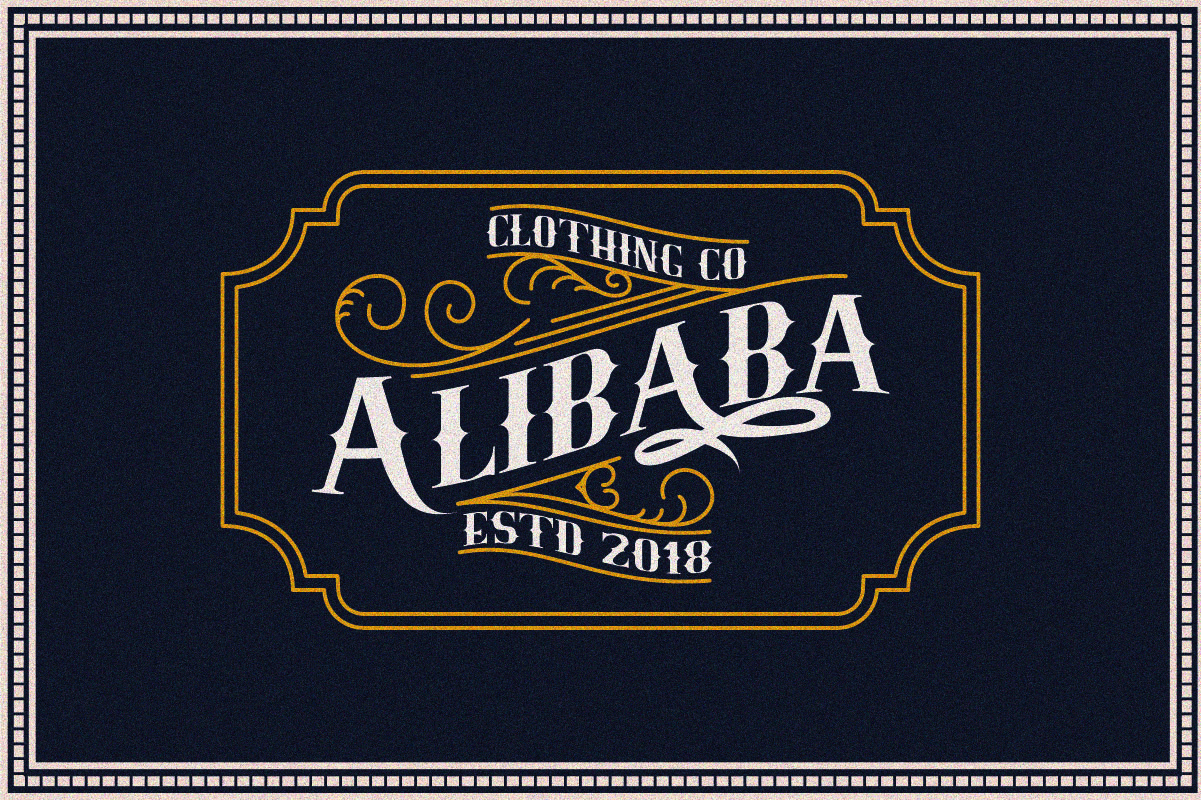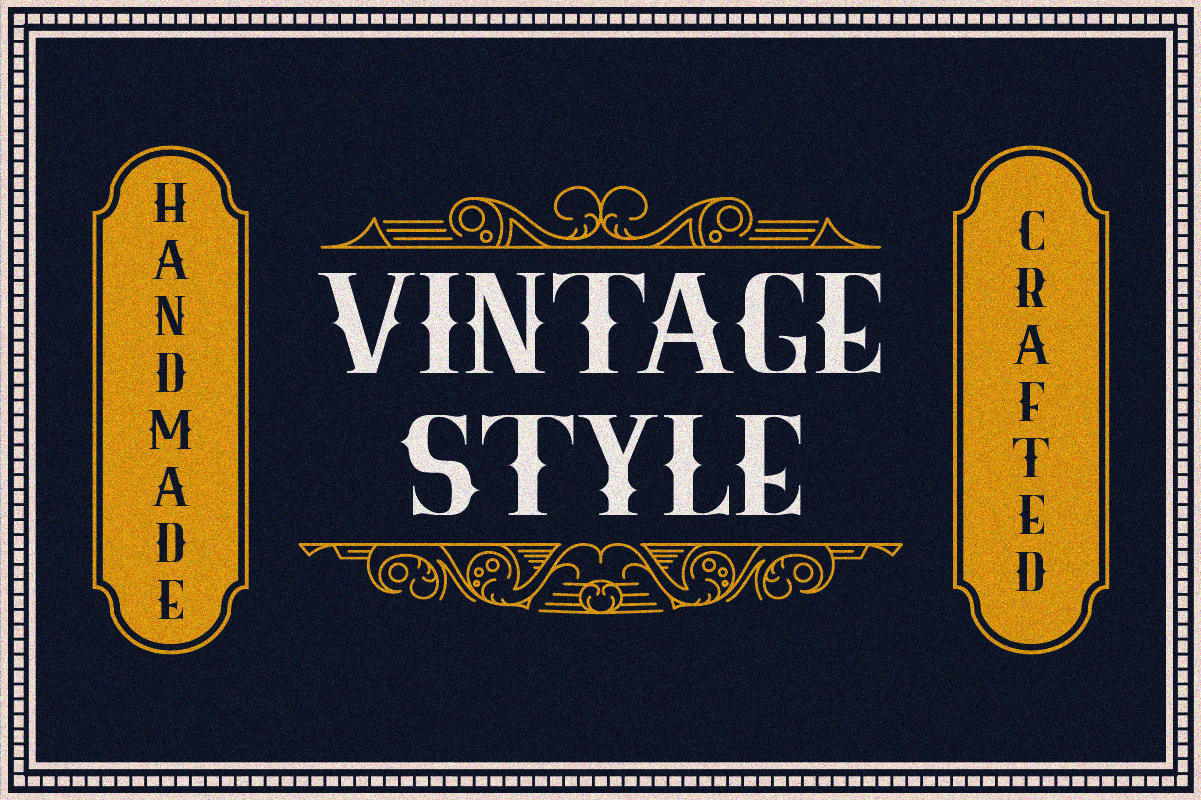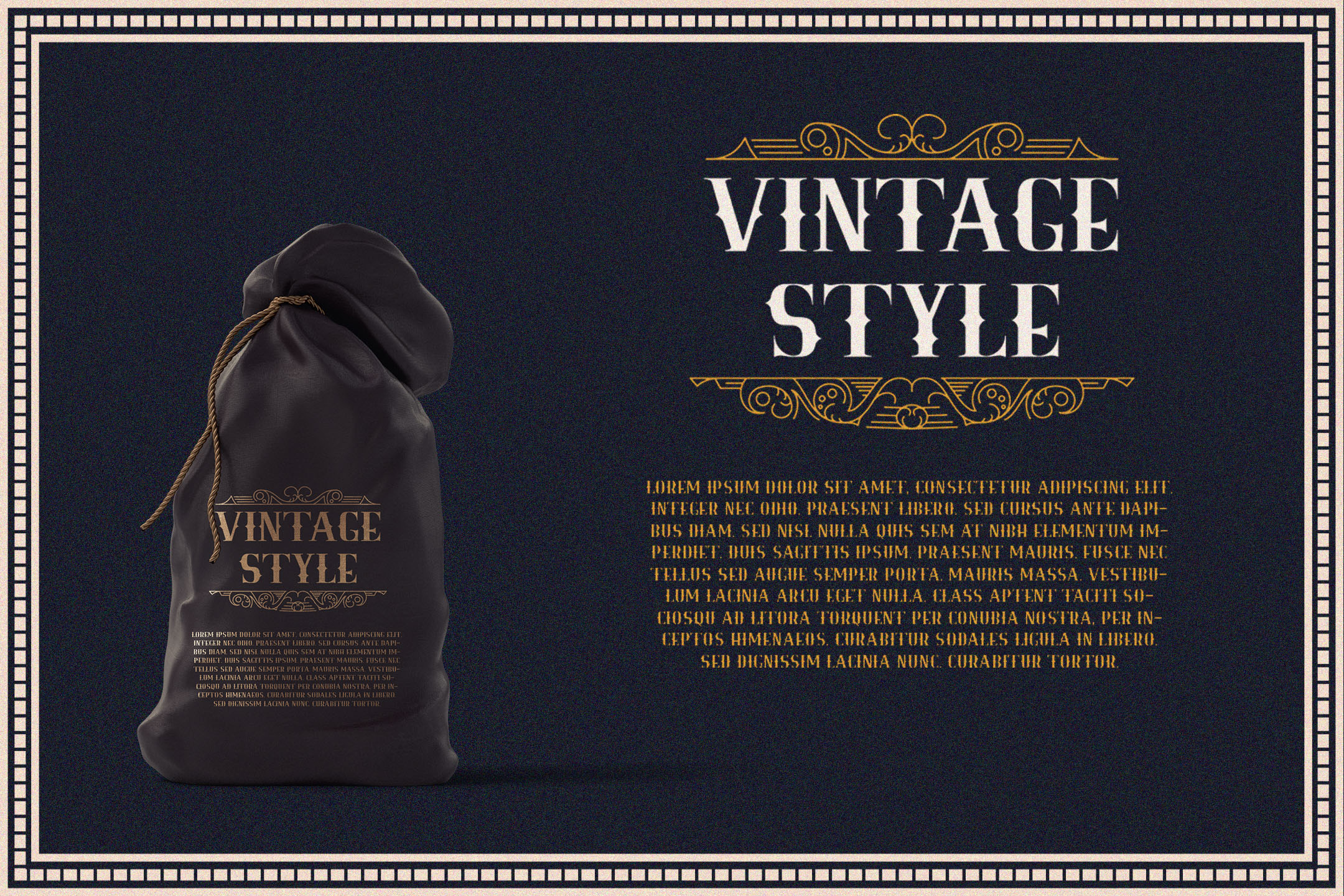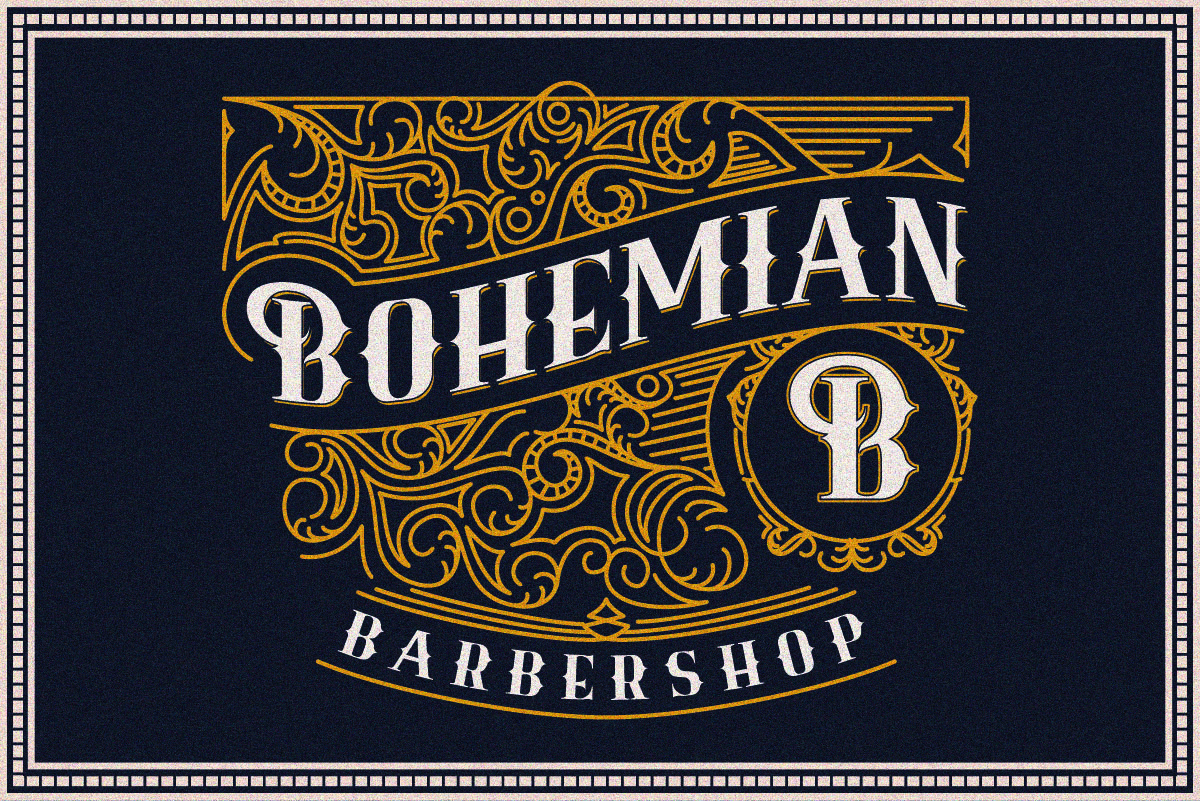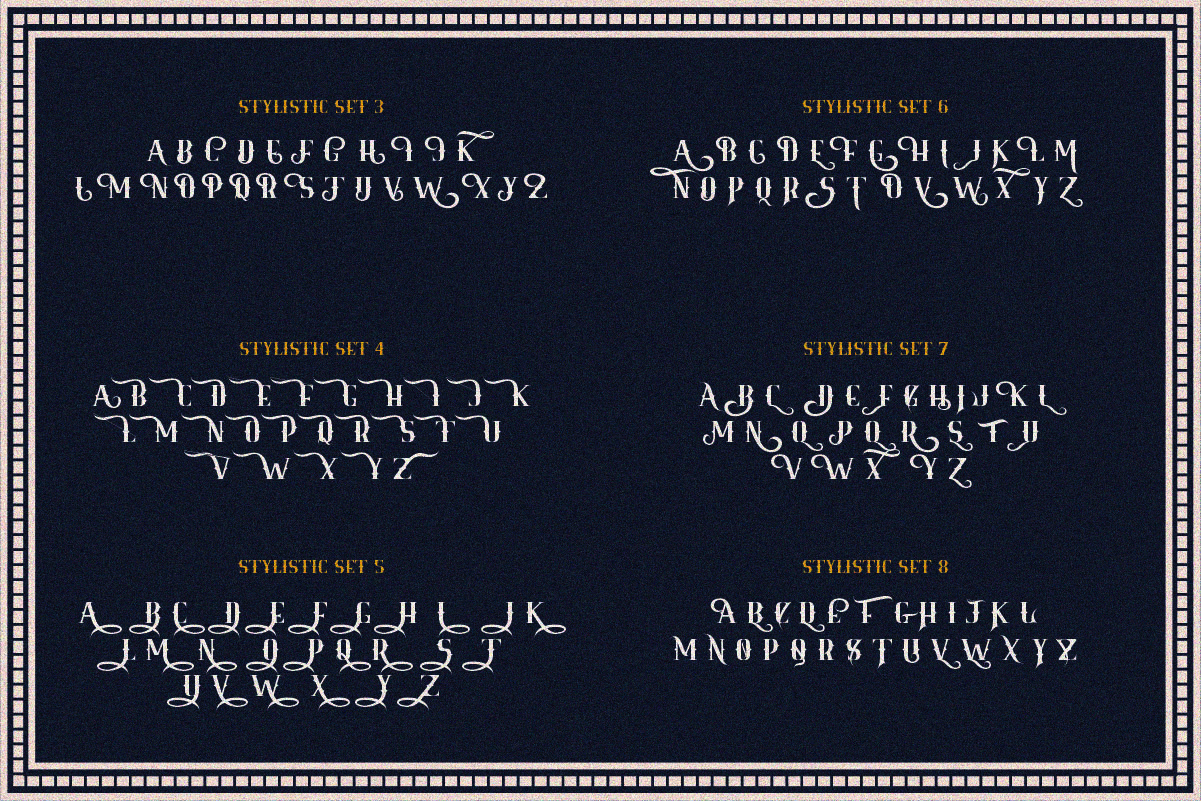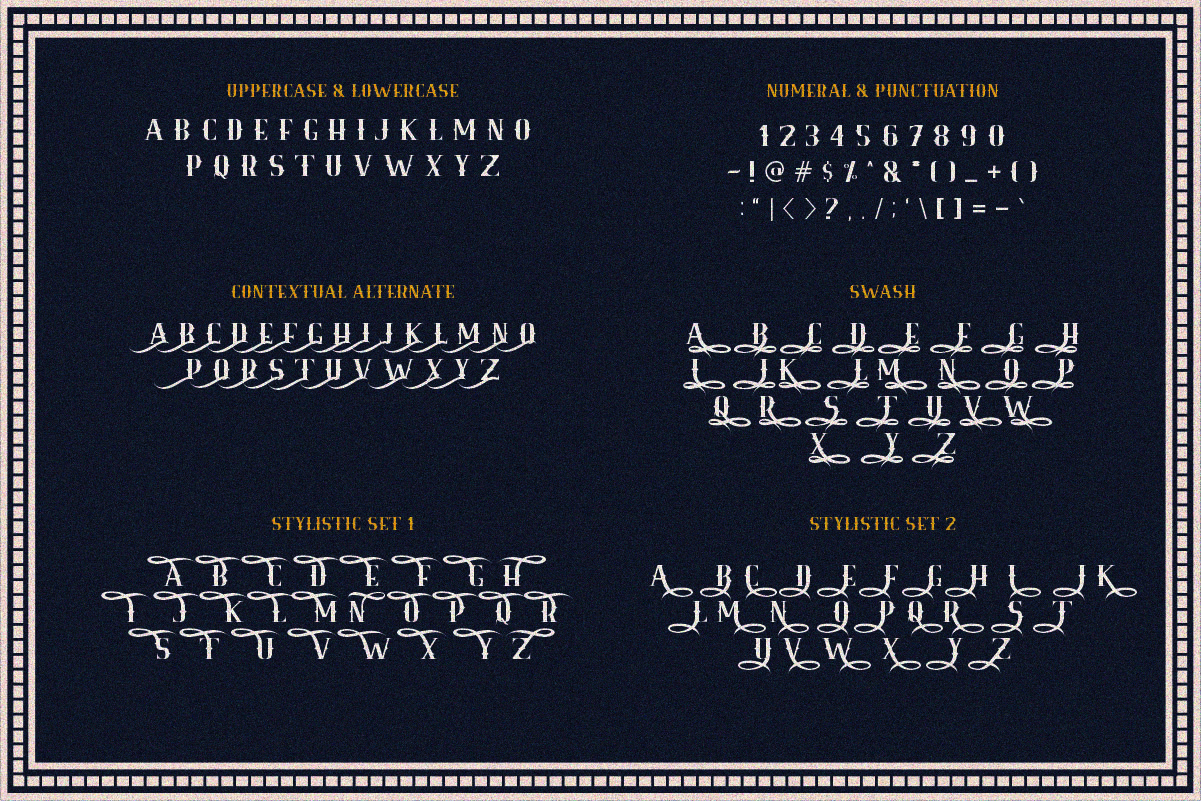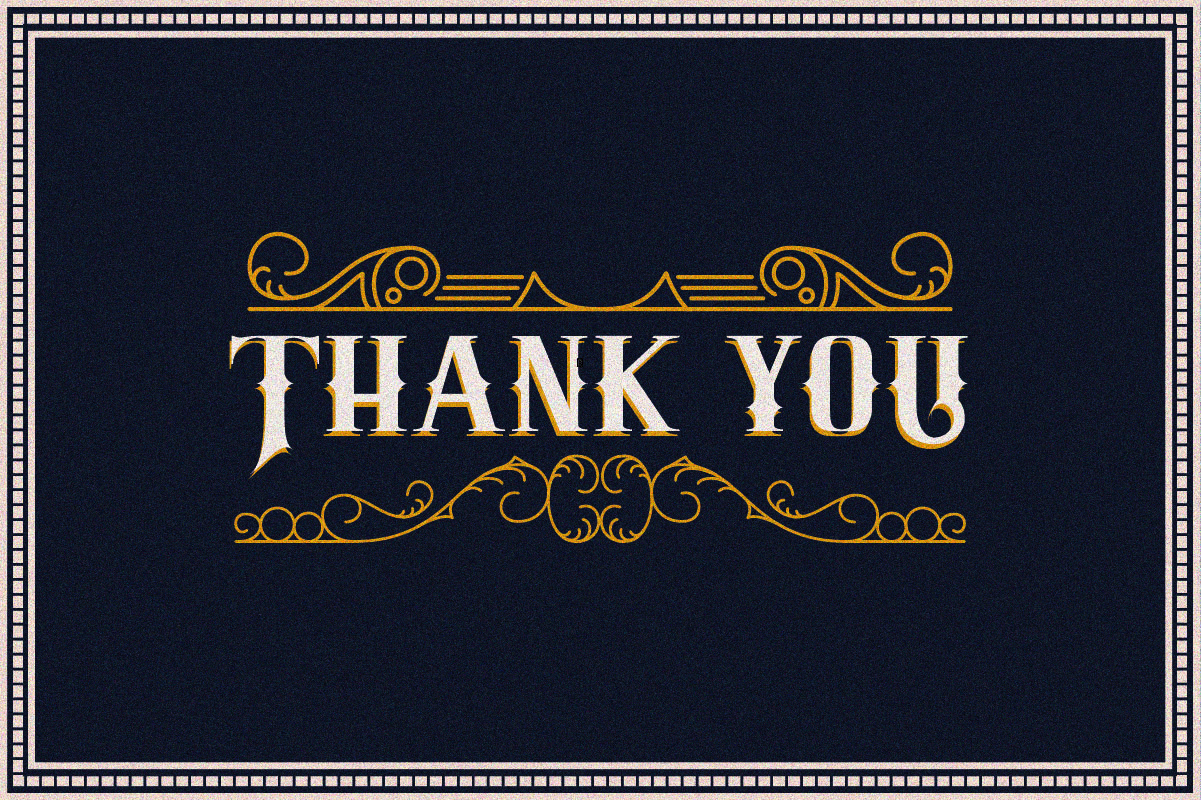
Add something vintage, fun and cool to your typeface toolbox with this beautiful font. Royale Kingdom was created by Fatih Al Ghazi and it’s perfect for everything from logos to posters to T-shirts. Download the free version below and check the pro version here.